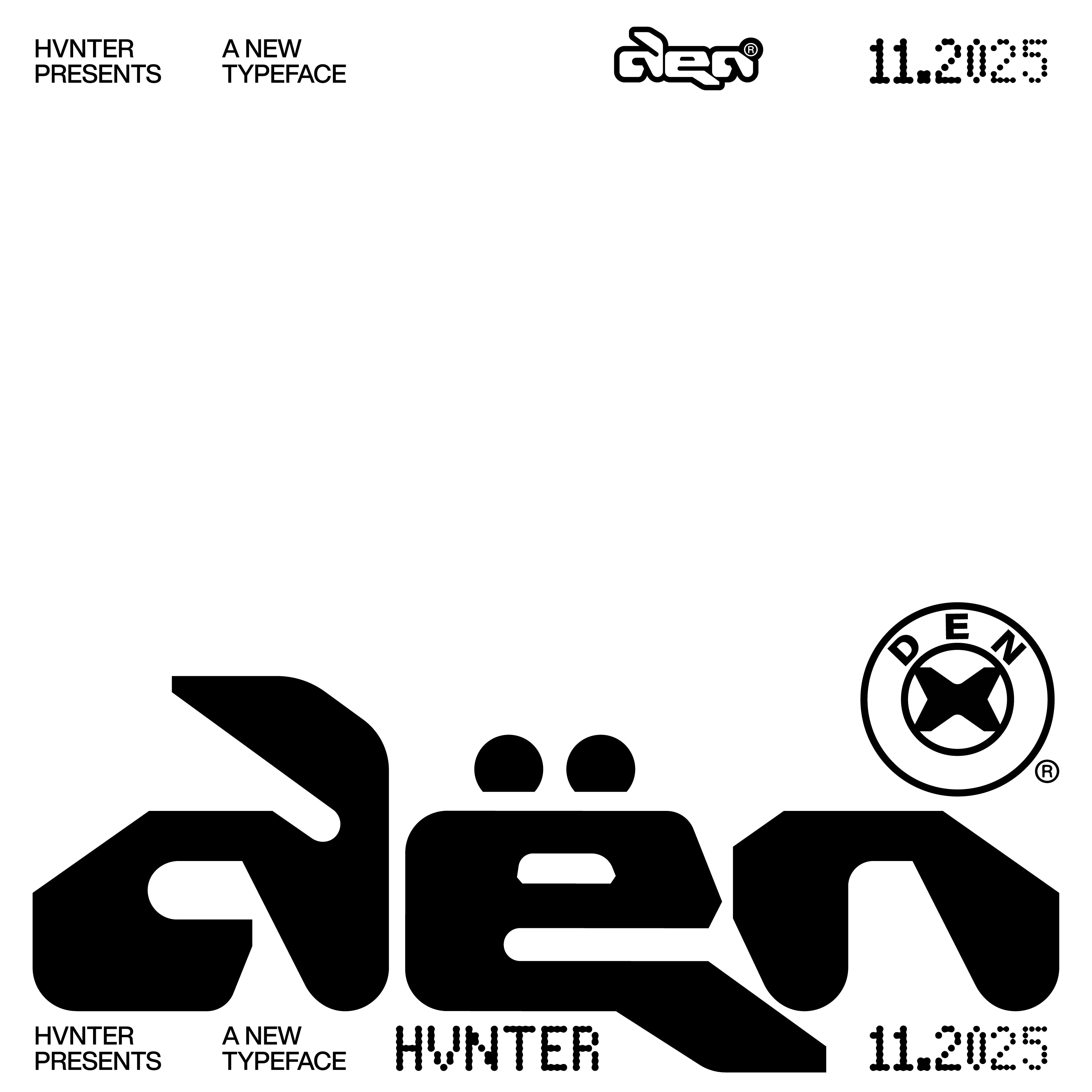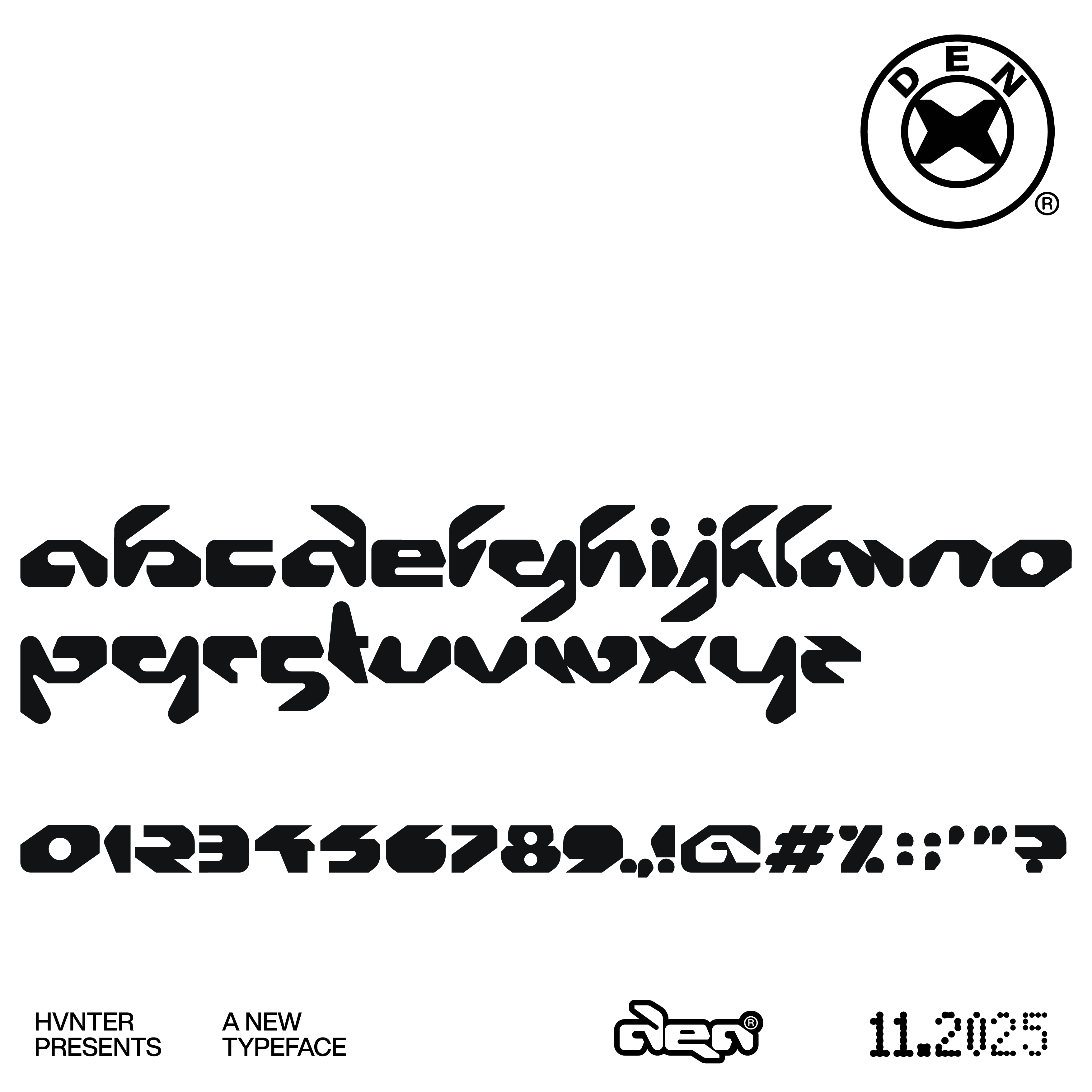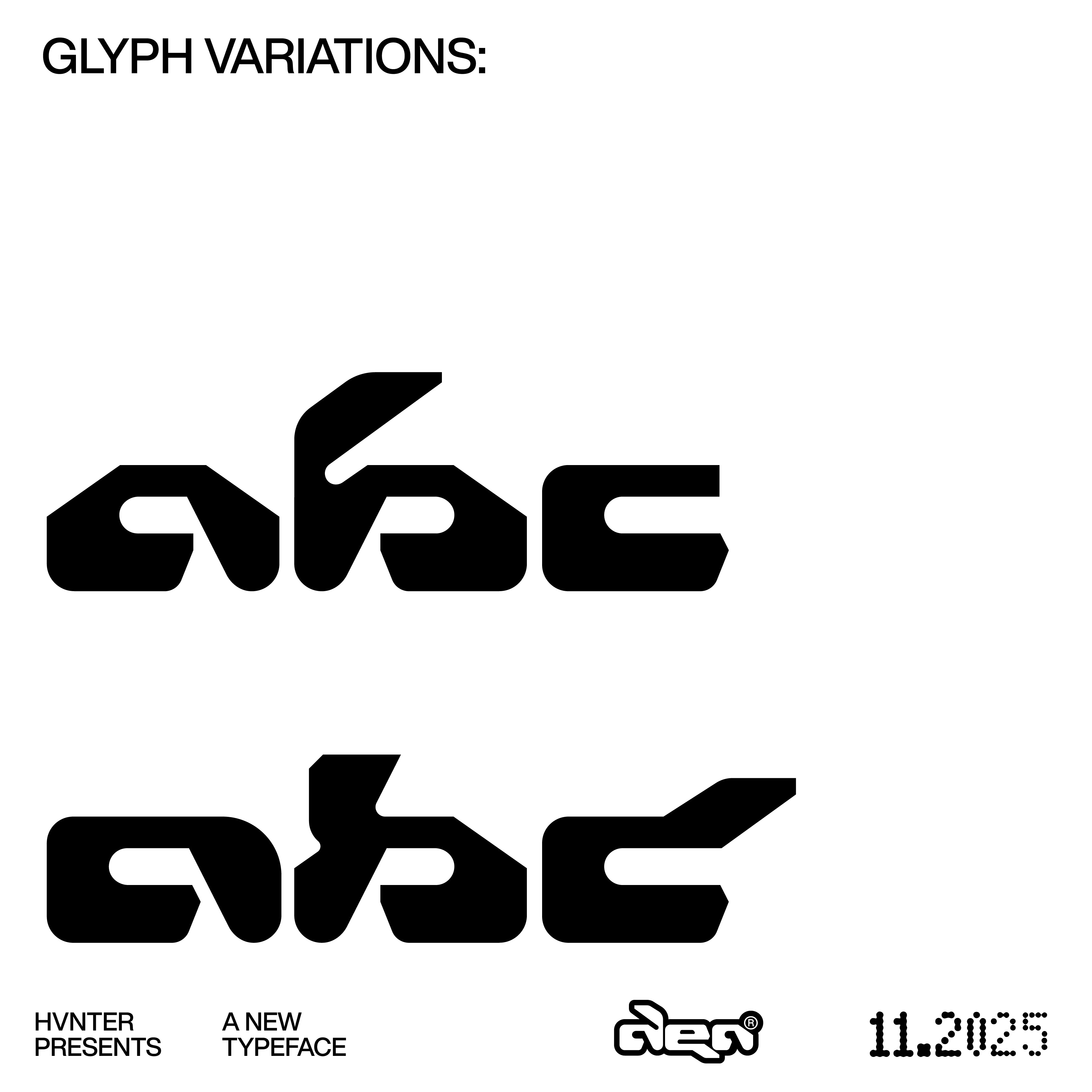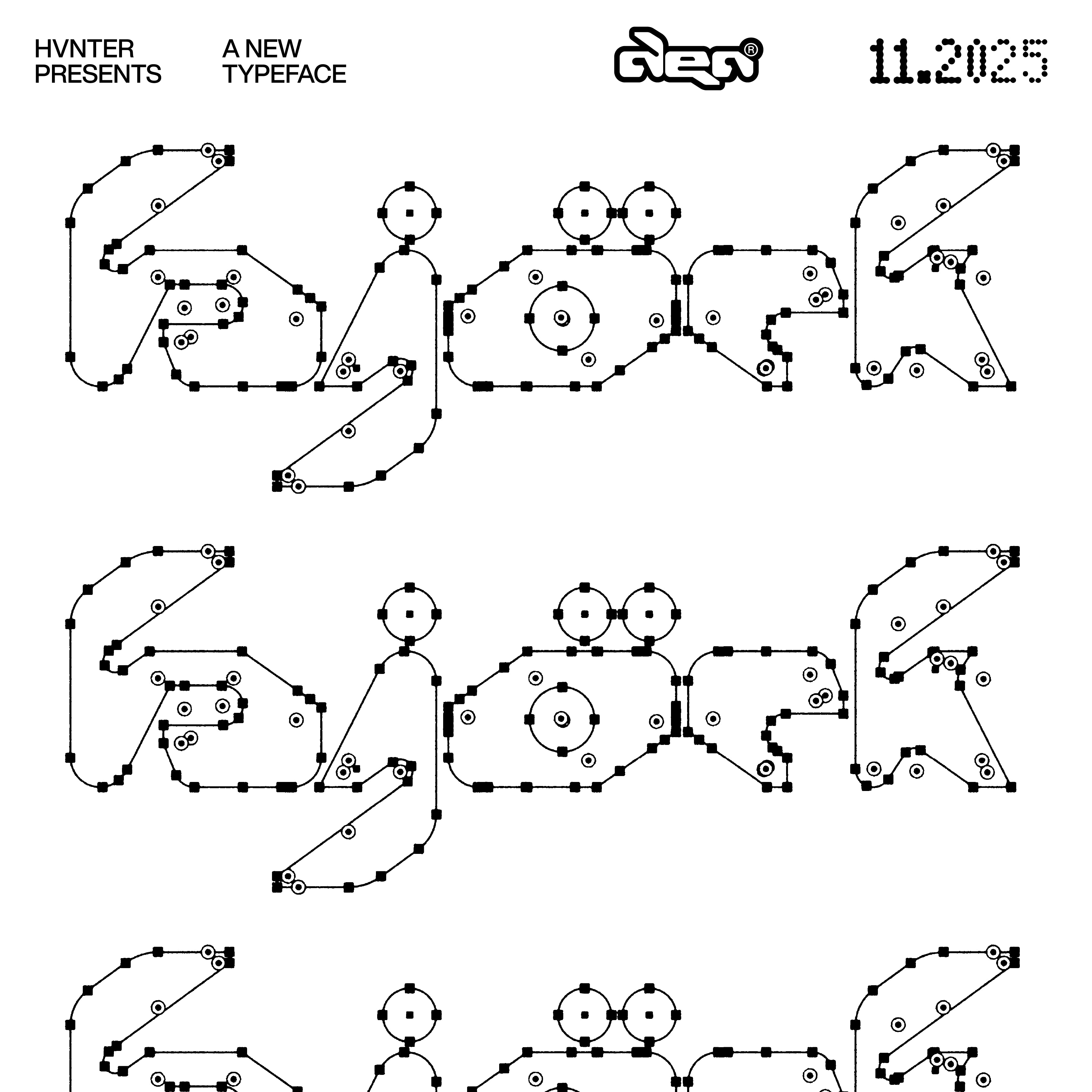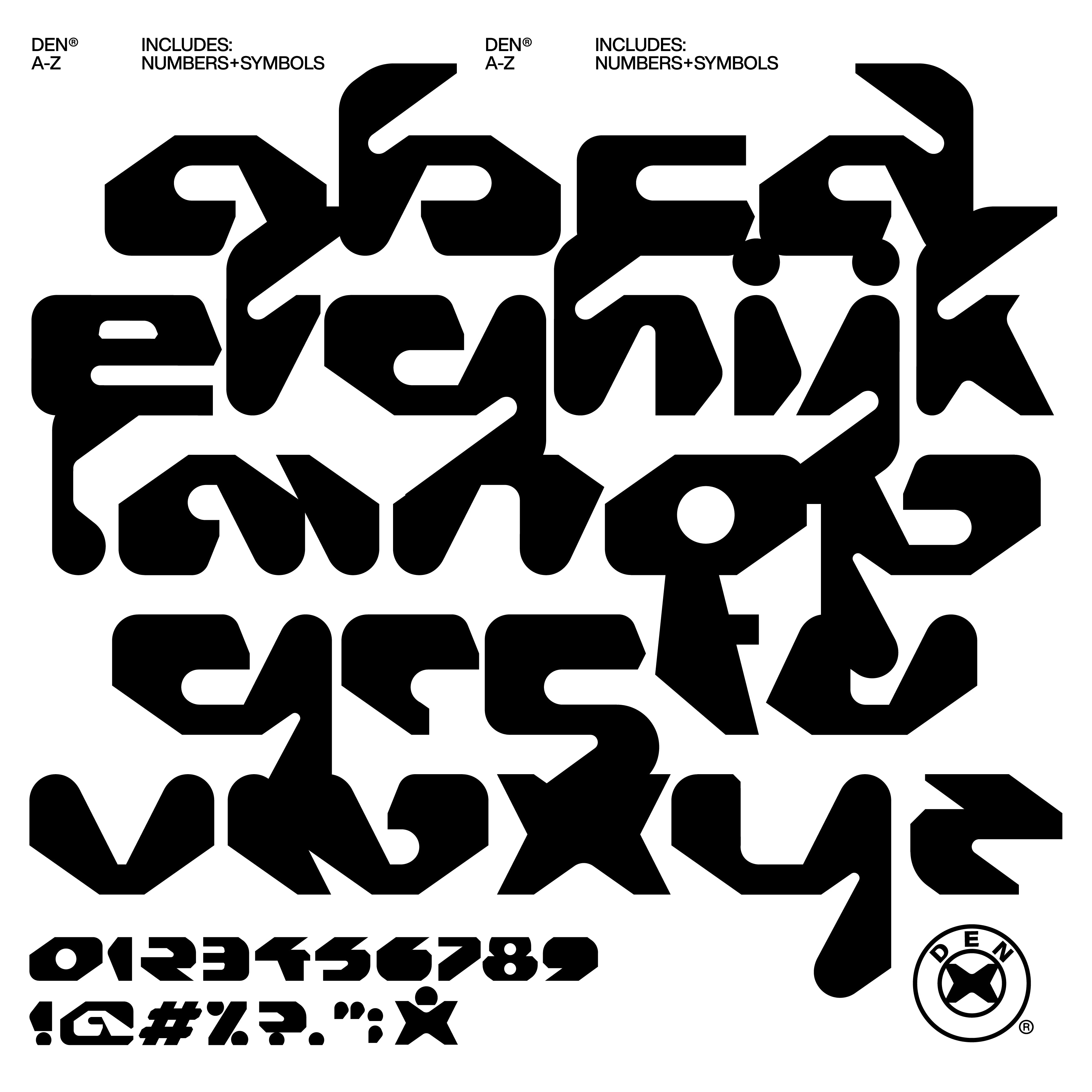
Den Typeface
Y2K Inspired typeface with letter variations to create custom type!
Includes a-z, 0-9 + basic symbols.
Den Typeface is a Y2K inspired font that features letter variations for customizable typography, including a-z, 0-9, and basic symbols. It is tagged with themes such as futuristic, cyber, and grunge.